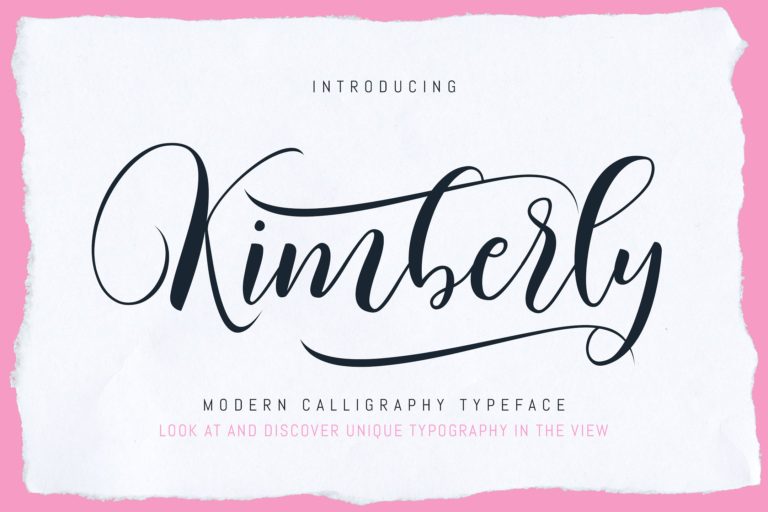
Kimberly Script Font
Continuation will be a modern calligraphy typeface, if you are needing a touch of casual chic calligraphy for your designs, this font was created for you! Introducing Kimberly Font. Kimberly is a modern calligraphy script font that gives your design an authentic cheating. perfect for signatures, wedding, invitation, card, stationery, logos, typographic quotes, book covers, website headers, flyers, clothing, branding, packaging designs and more.